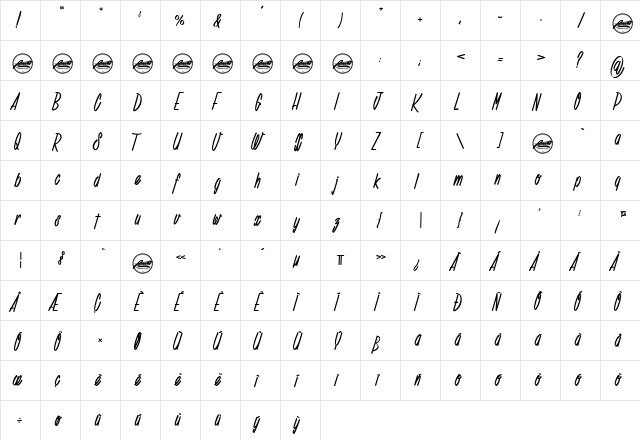
Deadline Countdown_PersonalUseOnly Regular
| Foundry | dcoxy Medina Gregory |
| Designer | dcoxy Medina Gregory |
Design Context for Deadline Countdown_PersonalUseOnly Typeface
Deadline Countdown_PersonalUseOnly offers clean, dependable letterforms without strong stylistic allegiance, making it a practical choice for designers who need flexibility.